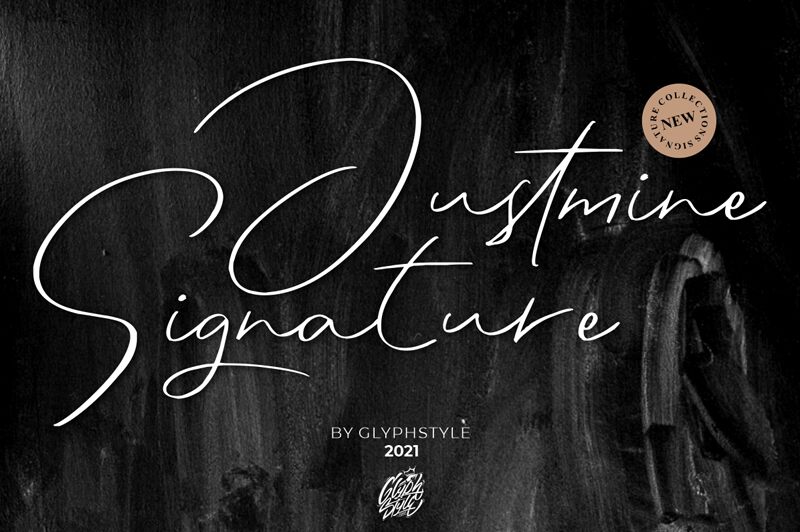
Justmine is a signature-style handwritten font designed by GlyphStyle. Its thin weight makes it perfect for adding a personal touch to any project. From wedding invitations and greeting cards to logos and branding, Justmine is the perfect choice for creating a unique, special feel.